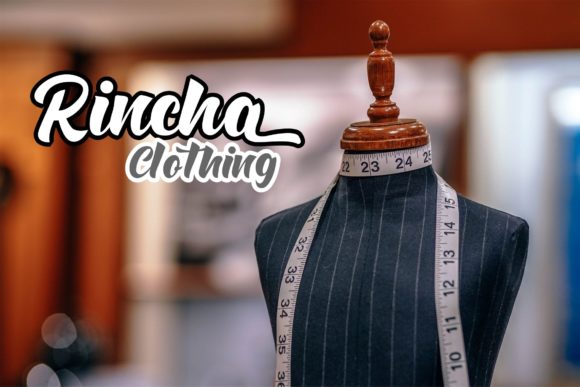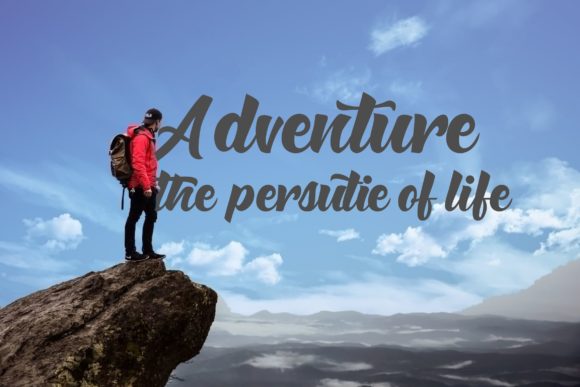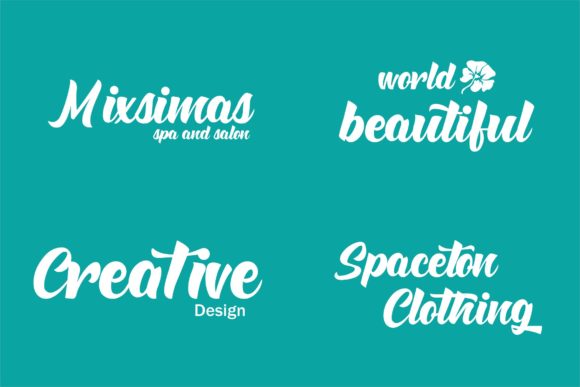
Introduction to Kafka Font
The Kafka is a smooth and legible script.
Its classic and elegant look makes it perfect for branding and marketing designs .
Key Features of Kafka Font
Why Choose Kafka Font?